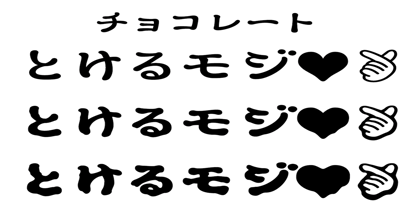
ML Chocolate
Die Schriftfamilie ML Chocolate wurde von entworfen und von MoolongType veröffentlicht. ML Chocolate enthält 3 Stile und Familienpaketoptionen. Mehr über diese Familie
This is a kana font that looks like it was written with a chocolate pen. It comes in three weights: Regular, SemiMelt, and the letters get thicker as the chocolate melts.